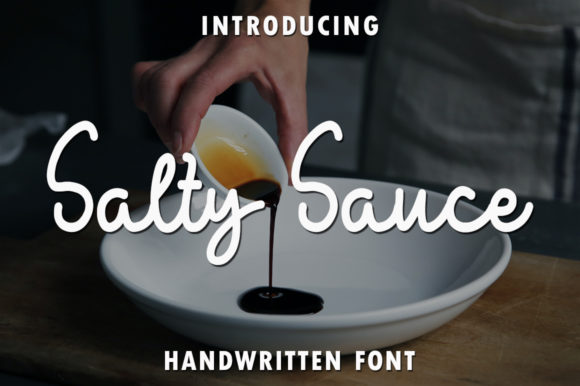
Salty Sauce Font: The Sweet and Delicate Handwritten Font for Romantic Designs
The world of typography is vast and diverse, with numerous fonts catering to various design needs. Among these, the Salty Sauce font stands out for its unique blend of sweetness and delicacy. This handwritten font is designed to add a touch of romance and personalization to various designs, making it an ideal choice for wedding invitations, cards, and other projects that require a special, heartfelt feel.
What is Salty Sauce Font?
Salty Sauce is a sweet and delicate handwritten font, characterized by its dainty and joyful appearance. Its elegant strokes and curves make it perfect for creating romantic and personalized designs. The font’s unique charm lies in its ability to convey a sense of warmth and intimacy, making it suitable for designs that require a special touch.
Uses of Salty Sauce Font
The Salty Sauce font is versatile and can be used in various design projects, including:
- Wedding Invitations: The font’s romantic and elegant appearance makes it an ideal choice for wedding invitations, adding a touch of sophistication and love to the design.
- Cards: Whether it’s a birthday, anniversary, or Valentine’s Day card, Salty Sauce font can add a personal and heartfelt touch to the design.
- Branding: The font can be used in branding projects that require a unique and personalized touch, such as logos, packaging, and advertising materials.
- Digital Designs: Salty Sauce font can be used in digital designs, such as social media graphics, blog posts, and website headers, to add a touch of elegance and sophistication.
Features of Salty Sauce Font
The Salty Sauce font has several features that make it an attractive choice for designers:
- Handwritten Appearance: The font’s handwritten appearance gives it a unique and personal touch, making it perfect for designs that require a human touch.
- Elegant Strokes: The font’s elegant strokes and curves make it suitable for designs that require a touch of sophistication and elegance.
- Versatility: The font is versatile and can be used in various design projects, from wedding invitations to branding and digital designs.
- Easy to Read: The font is easy to read, making it perfect for designs that require a clear and concise message.
Tips for Using Salty Sauce Font
To get the most out of the Salty Sauce font, here are some tips to keep in mind:
- Use it Sparingly: Use the font sparingly to avoid overwhelming the design. It’s best to use it for headings or titles, and a simpler font for the body text.
- Pair it with Other Fonts: Pair the Salty Sauce font with other fonts to create a unique and visually appealing design.
- Adjust the Size: Adjust the font size to suit the design. A larger font size can be used for headings, while a smaller font size can be used for body text.
- Experiment with Colors: Experiment with different colors to find the perfect combination that suits the design.
Salty Sauce Font Alternatives
Salty Sauce Font FAQs
Here are some frequently asked questions about the Salty Sauce font:
- What is Salty Sauce font? Salty Sauce font is a sweet and delicate handwritten font, characterized by its dainty and joyful appearance.
In conclusion, the Salty Sauce font is a beautiful, elegant font that’s perfect for designs that require a touch of romance and personalization. Its handwritten appearance, elegant strokes, and versatility make it an attractive choice for designers. By following the tips and guidelines outlined in this article, you can get the most out of the Salty Sauce font and create stunning designs that capture the heart of your audience.